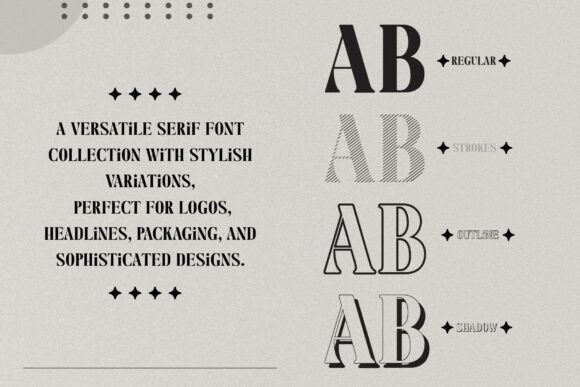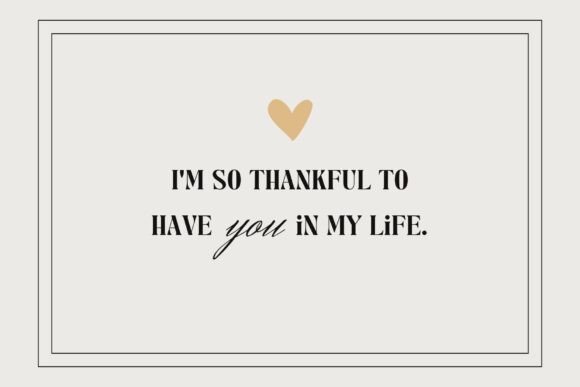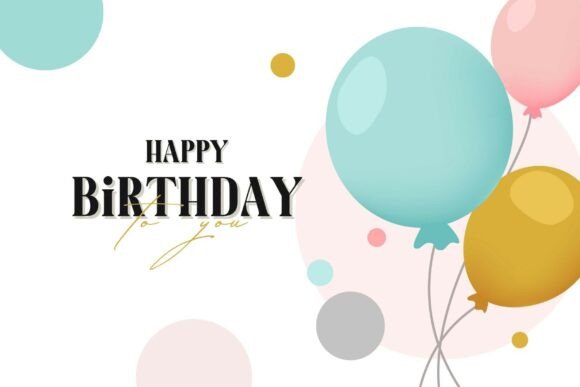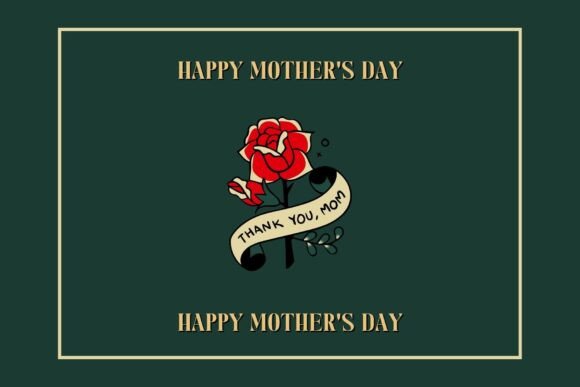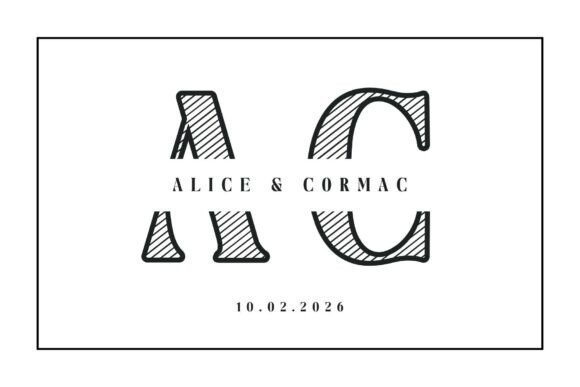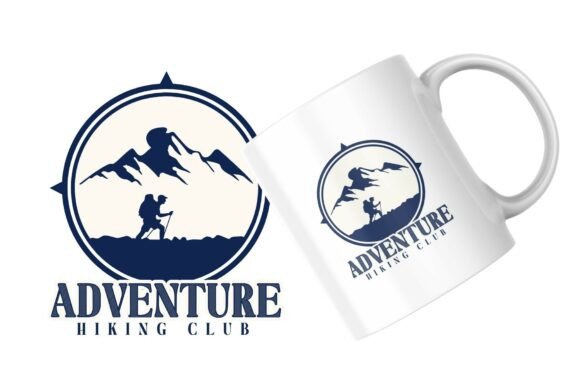
Introduction to Fox Brielle Font
Fox Brielle is a versatile serif font collection designed to bring elegance, charm, and timeless sophistication to your creative projects.
Inspired by classic typography with a modern touch, Fox Brielle features beautifully balanced letterforms and refined details that feel both graceful and confident This font family includes multiple stylish variations — Regular, Strokes, Outline, and Shadow — allowing you to create rich visual depth and eye-catching typography with ease.
Key Features of Fox Brielle Font